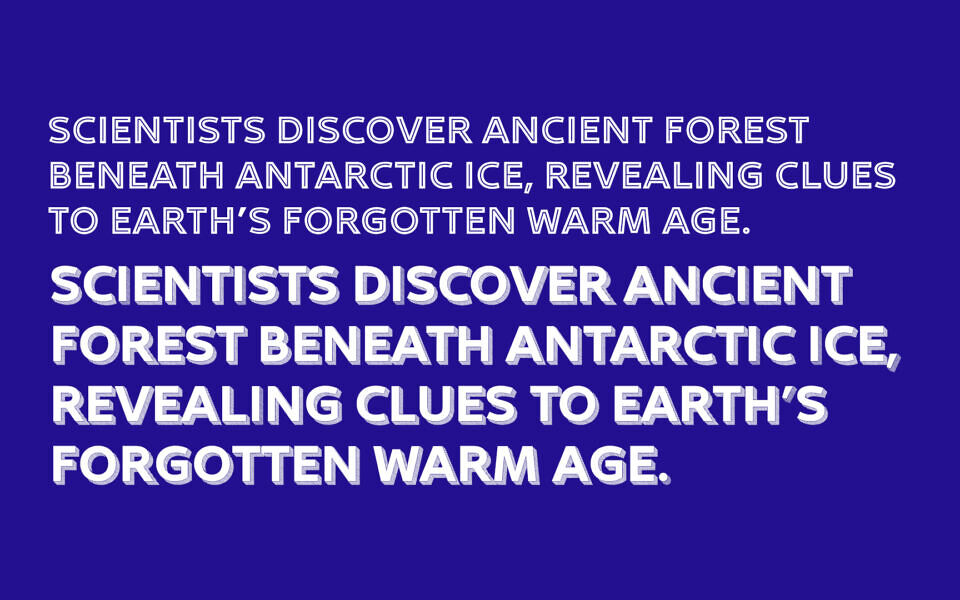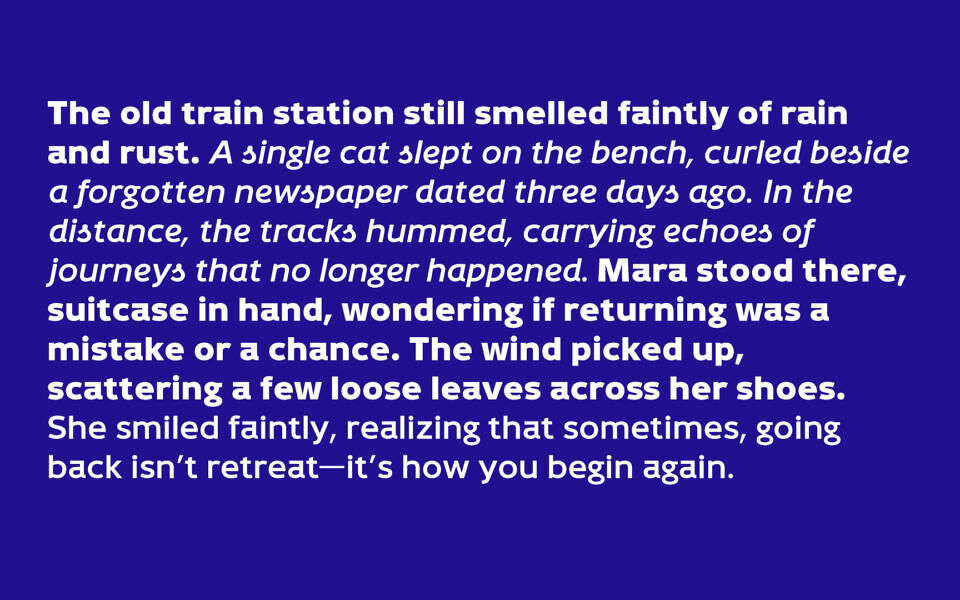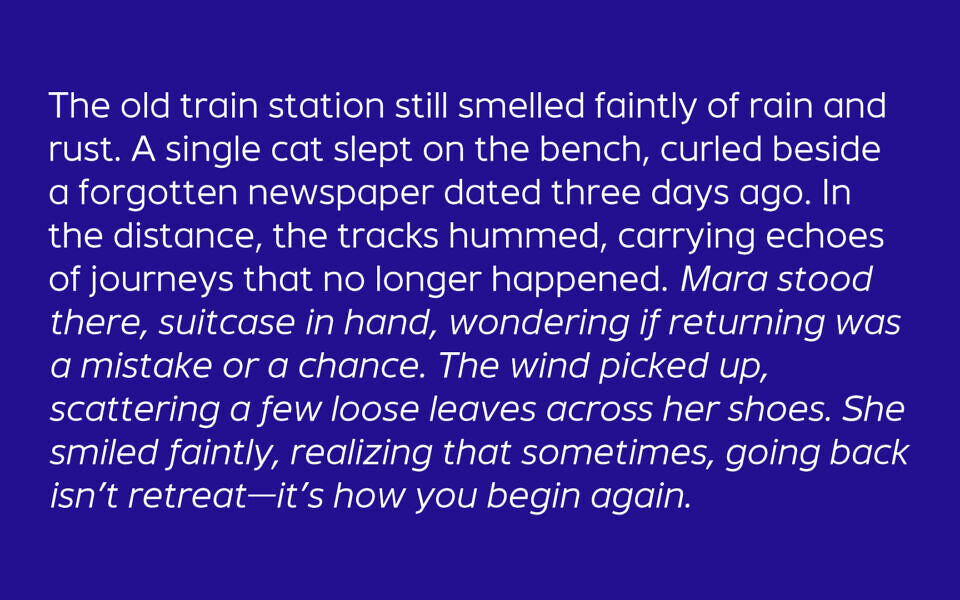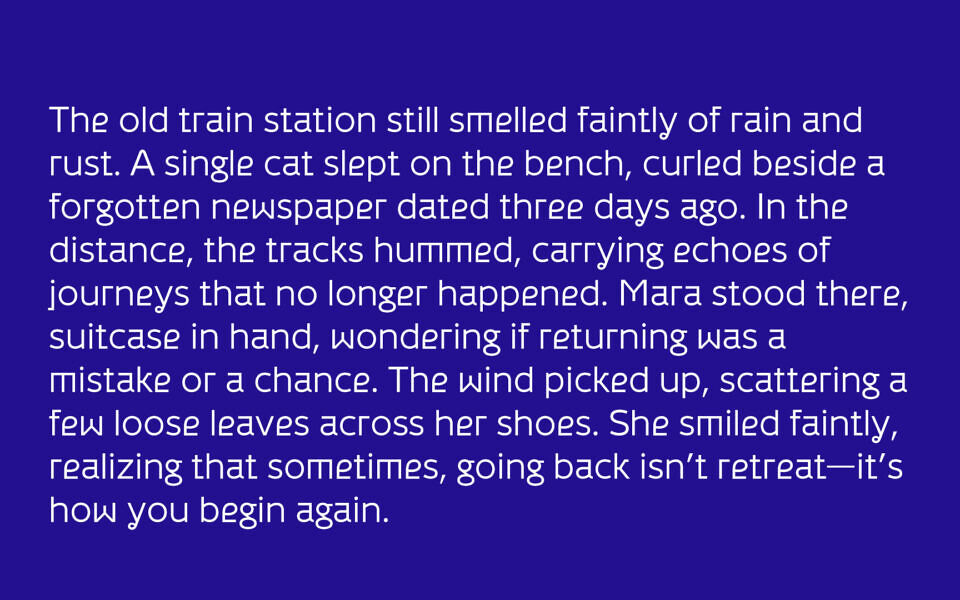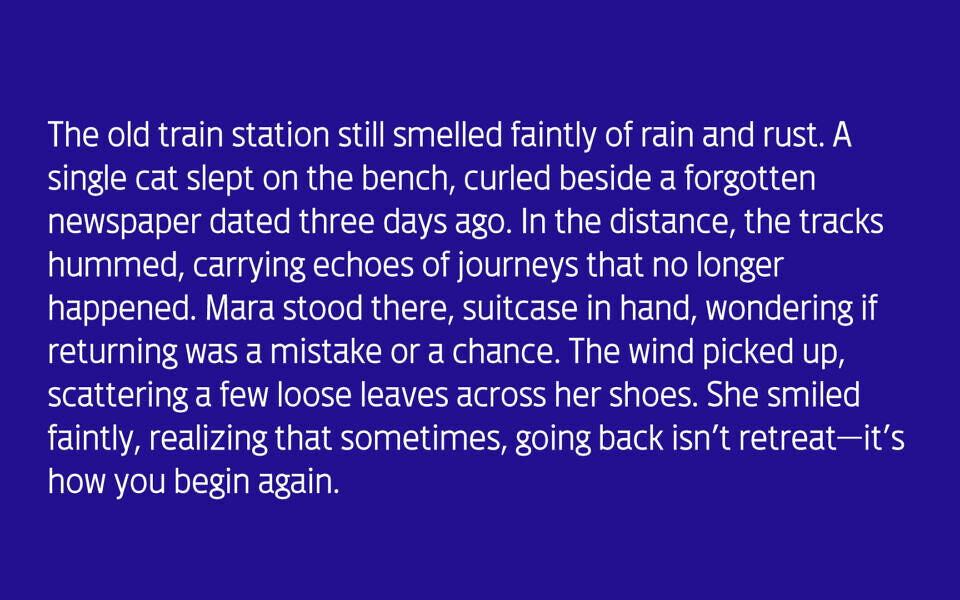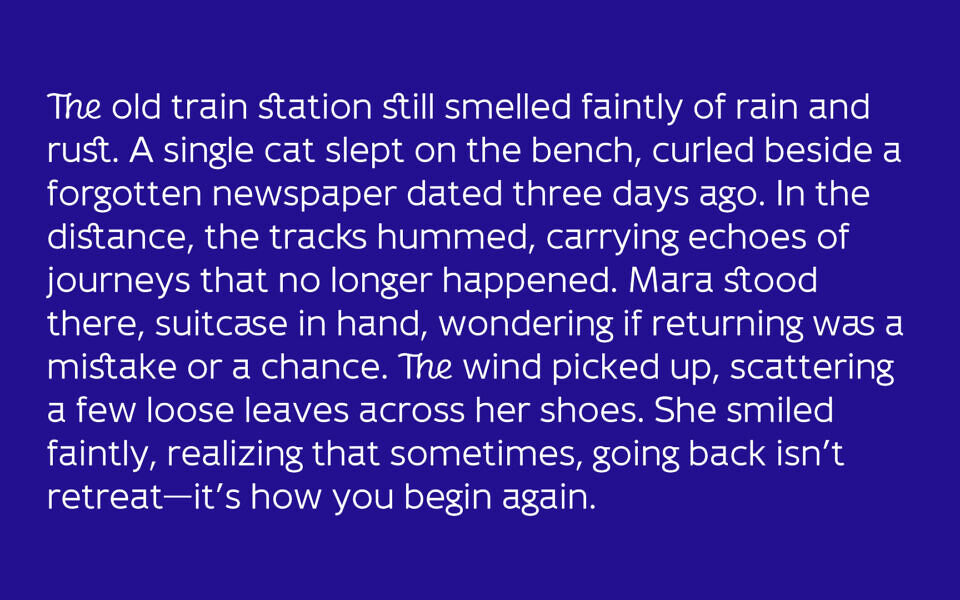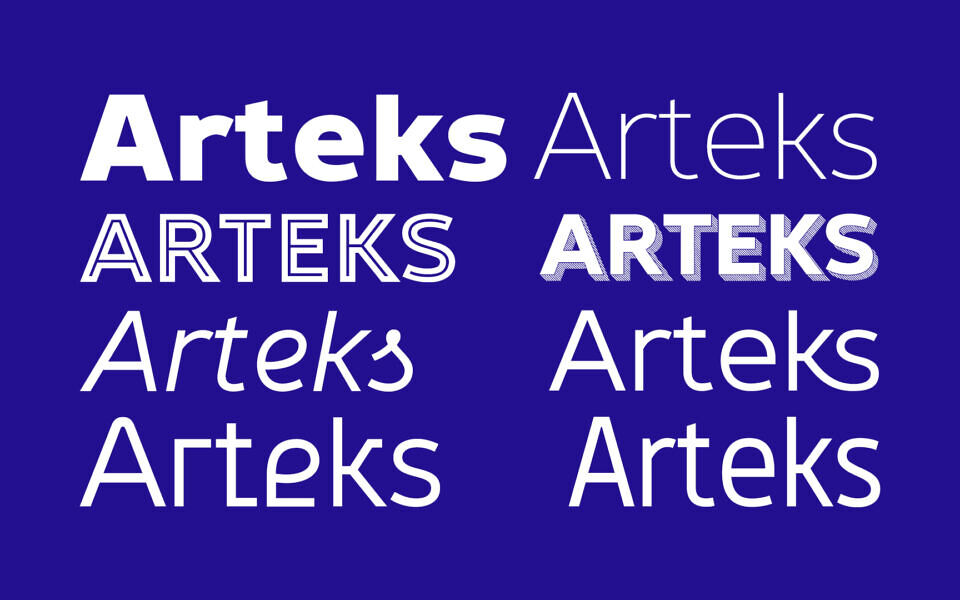
Arteks Font
Arteks is a contemporary geometric sans-serif font blending clean precision with humanistic curves. Designed for clarity and versatility, it features distinctive open letterforms, subtle calligraphic touches, and excellent readability across print and digital media.
With multiple weights, outlines, and shadow styles, Arteks suits headlines, branding, editorial design, and immersive storytelling. Its modern aesthetic and fluid rhythm make it perfect for both expressive and professional typography. Arteks captures a balance between minimalism and warmth—ideal for designers seeking a creative yet highly legible typeface for standout visual communication.